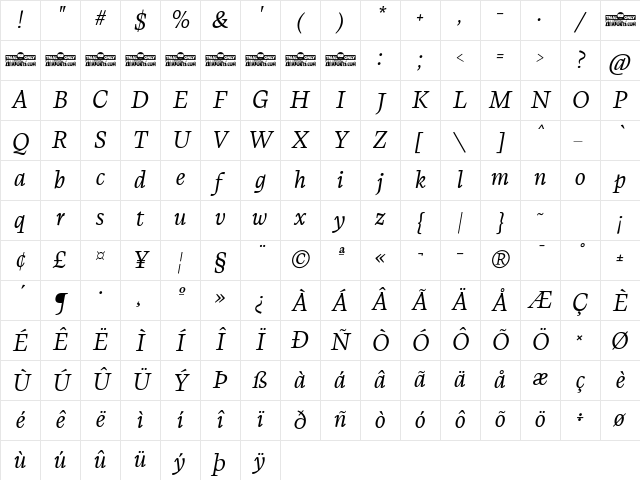
CalvinoTrial Book Italic
Foundry: Ligatures
Designer: Andrea Tartarelli
CalvinoTrial Family
Design Context for CalvinoTrial
CalvinoTrial is a composed and adaptable typeface that performs quietly and consistently across a wide range of design contexts. The slanted form adds forward momentum and visual energy.